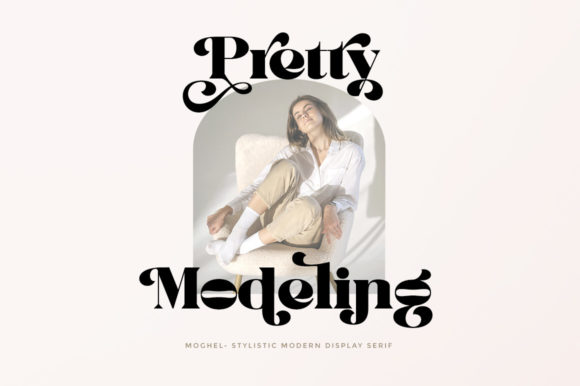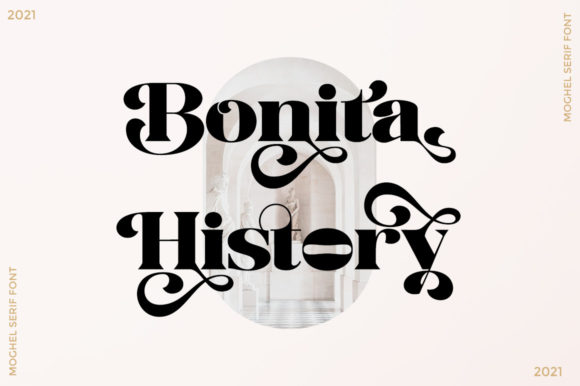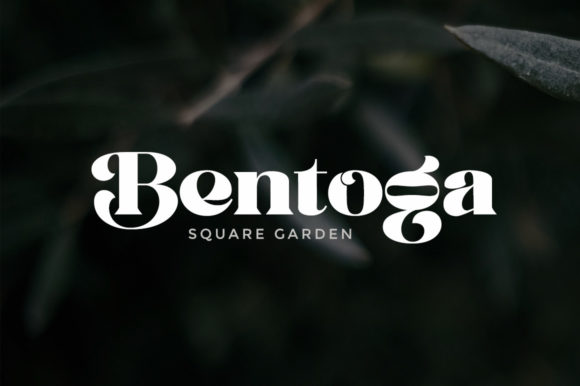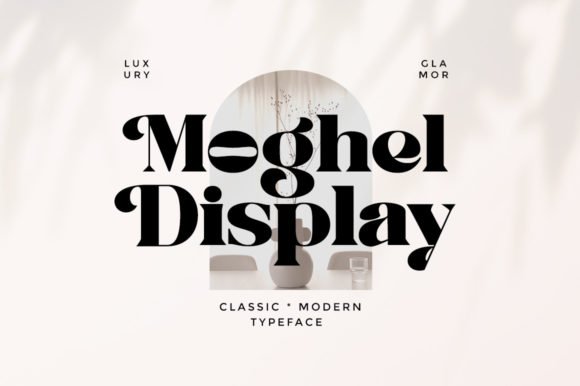
Introduction to Moghel Display Font
Moghel display is a modern serif font with a unique ligature style, high contrast, and light font perfect for feminine logo signs, fashion heads & editorial designs, branding projects, clothing branding, packaging, magazine headings, advertising, t-shirts, postcards, and much more.
Key Features of Moghel Display Font
Why Choose Moghel Display Font?
Moghel Display Font offers exceptional quality and versatility, making it a valuable addition to your design toolkit. Whether you’re creating for personal projects or commercial use, Moghel Display Font delivers professional results.